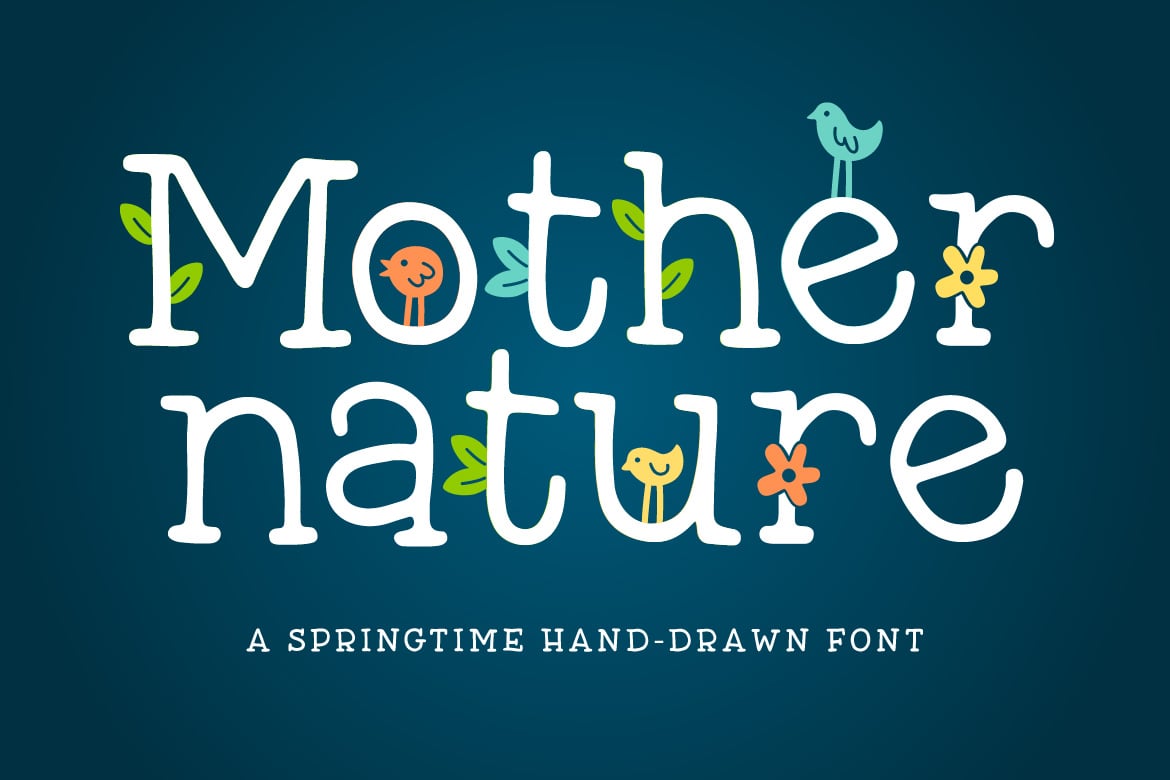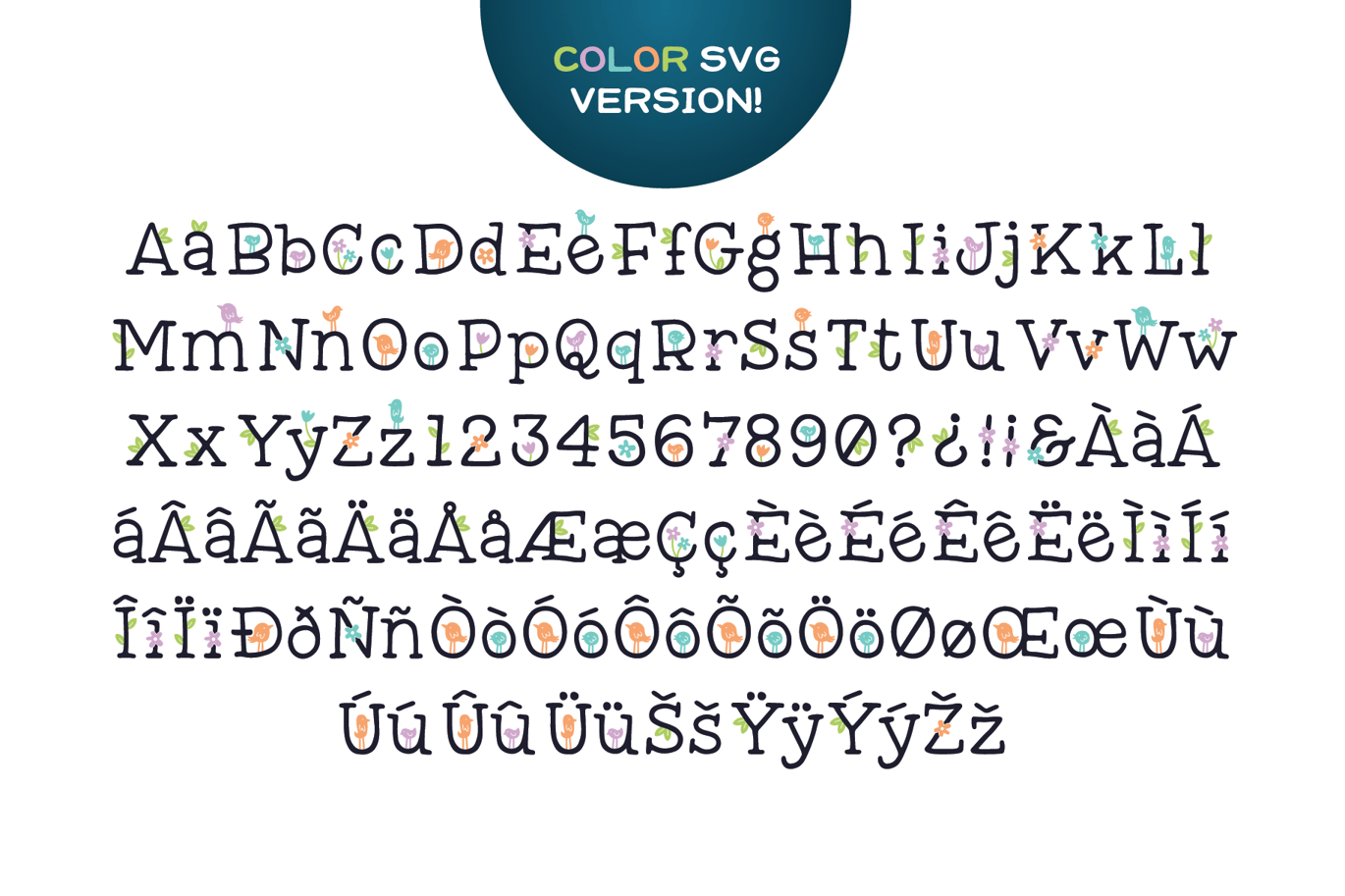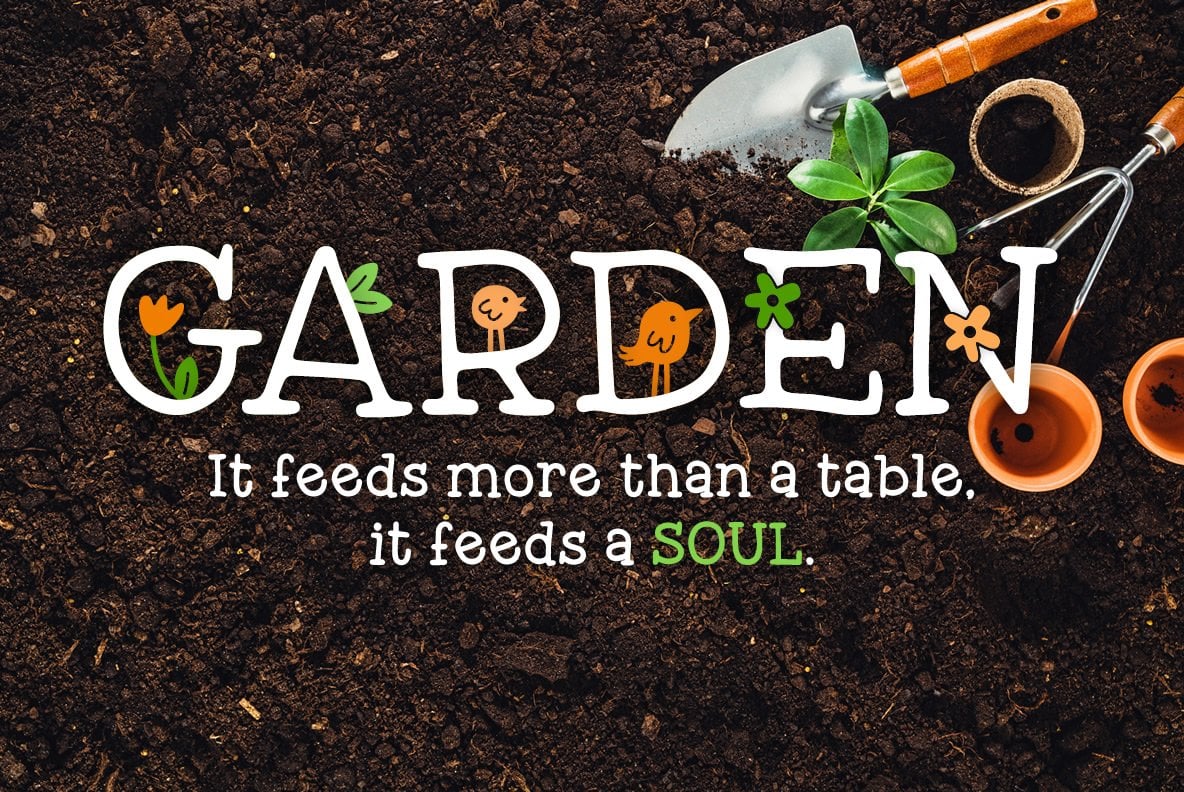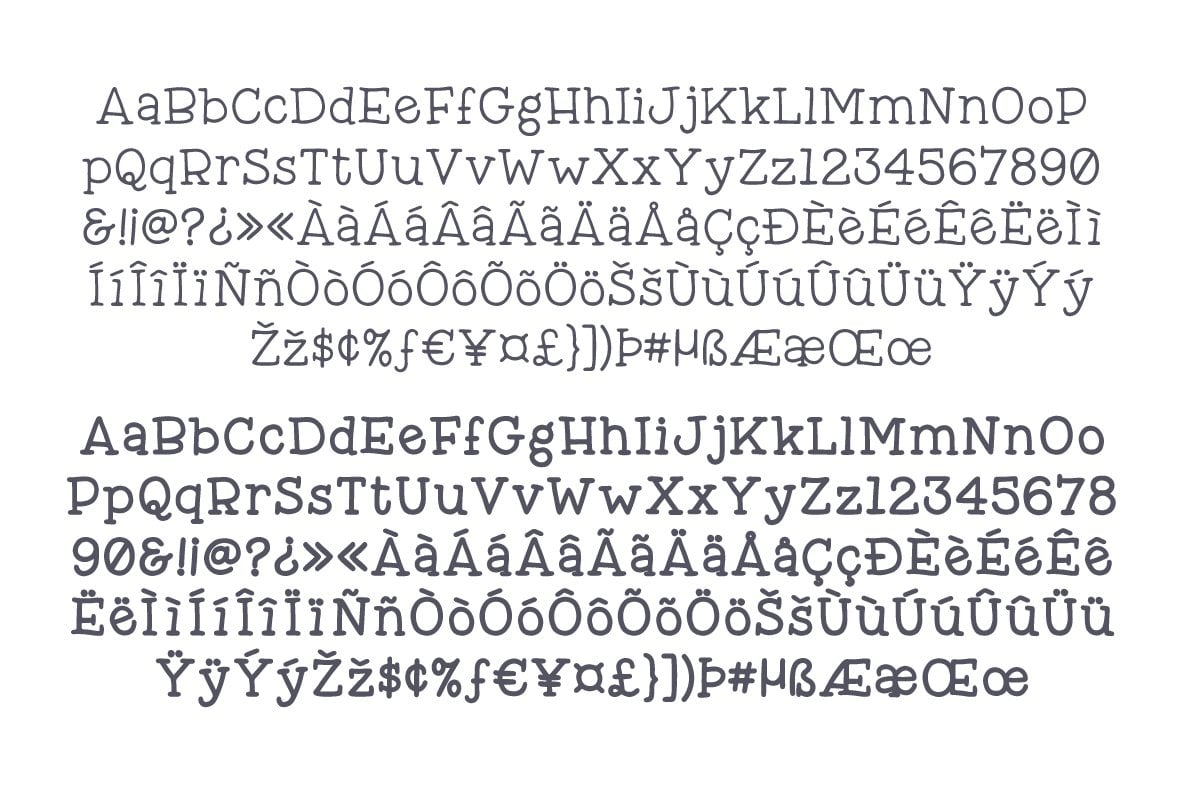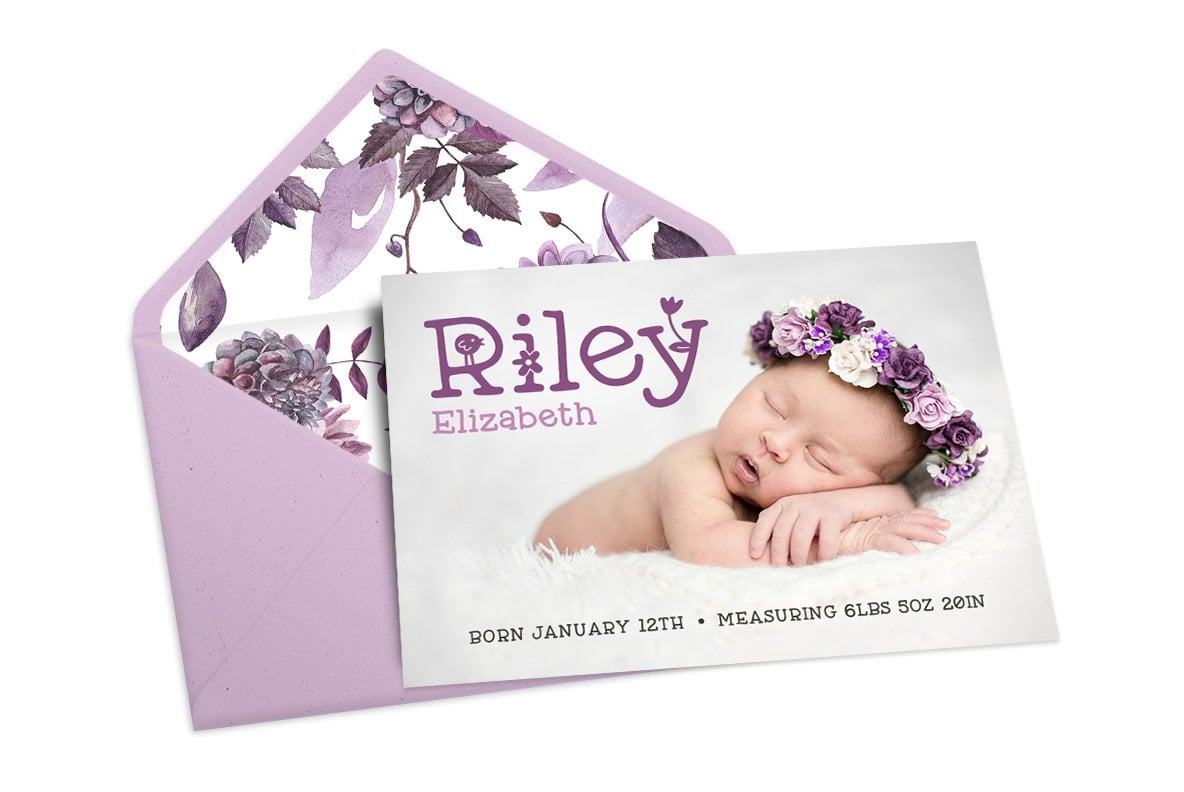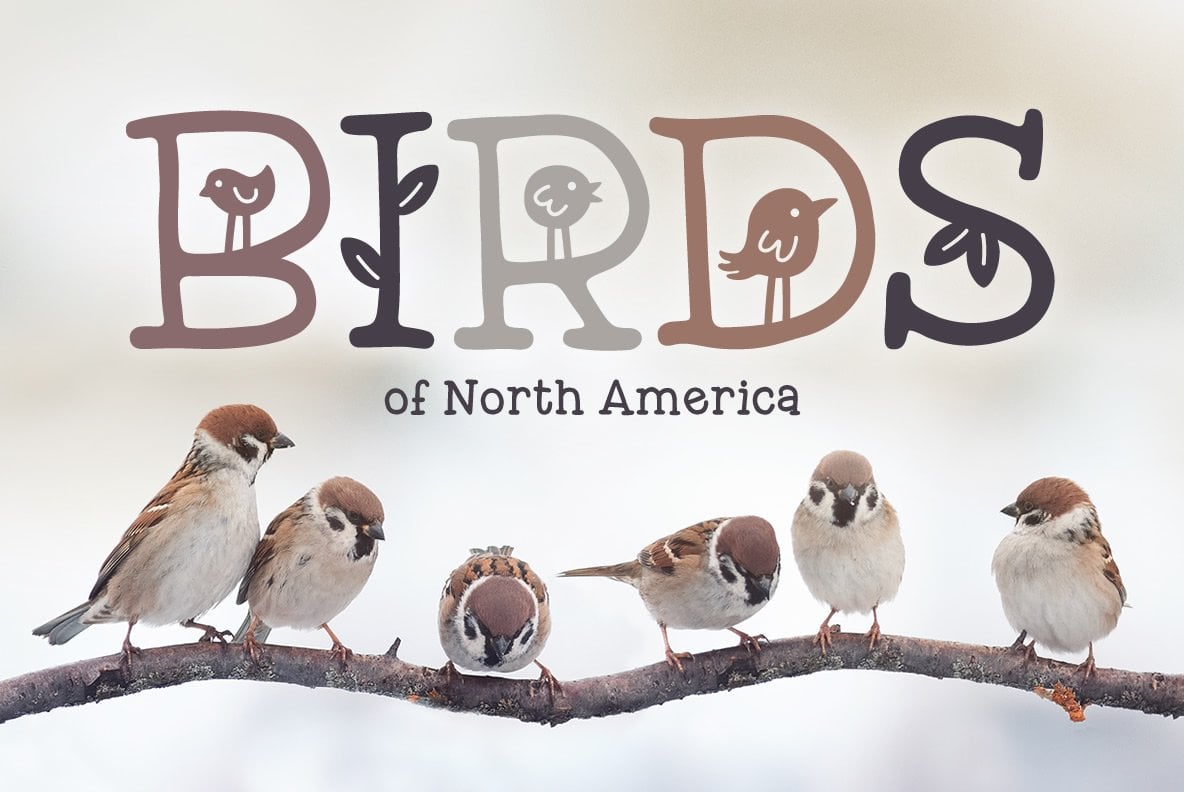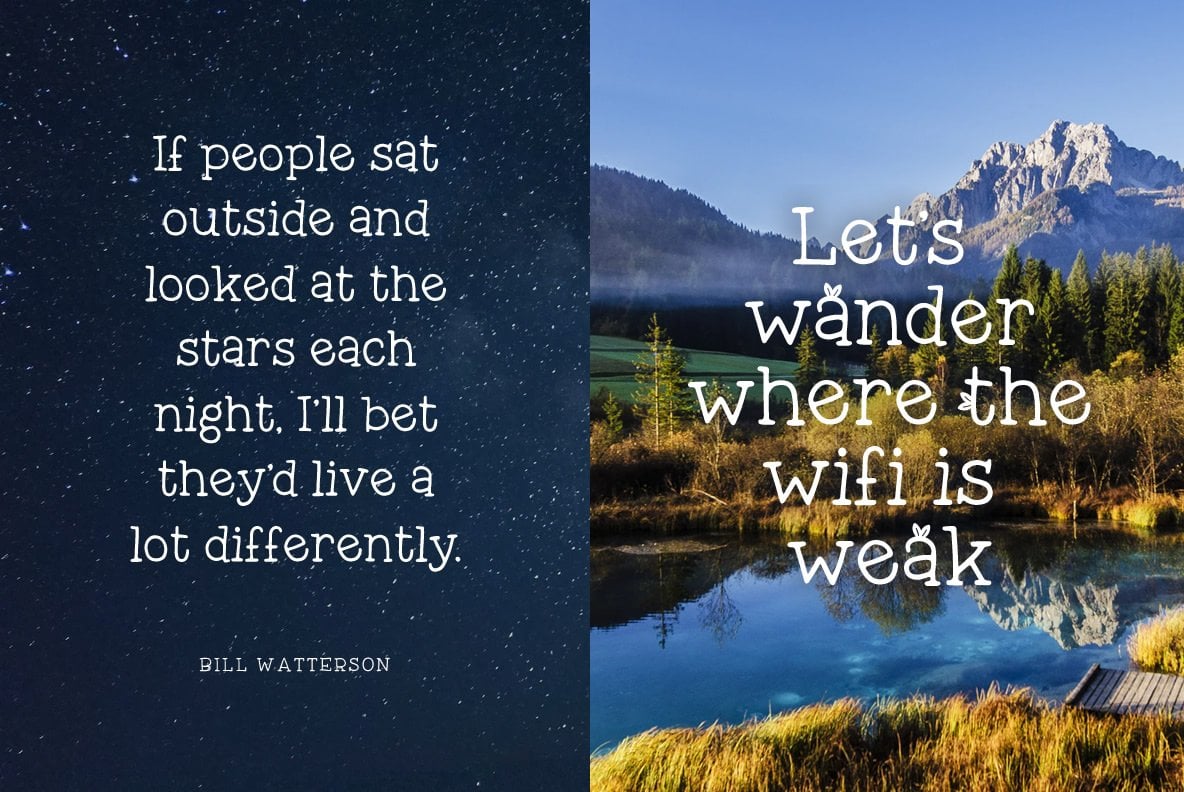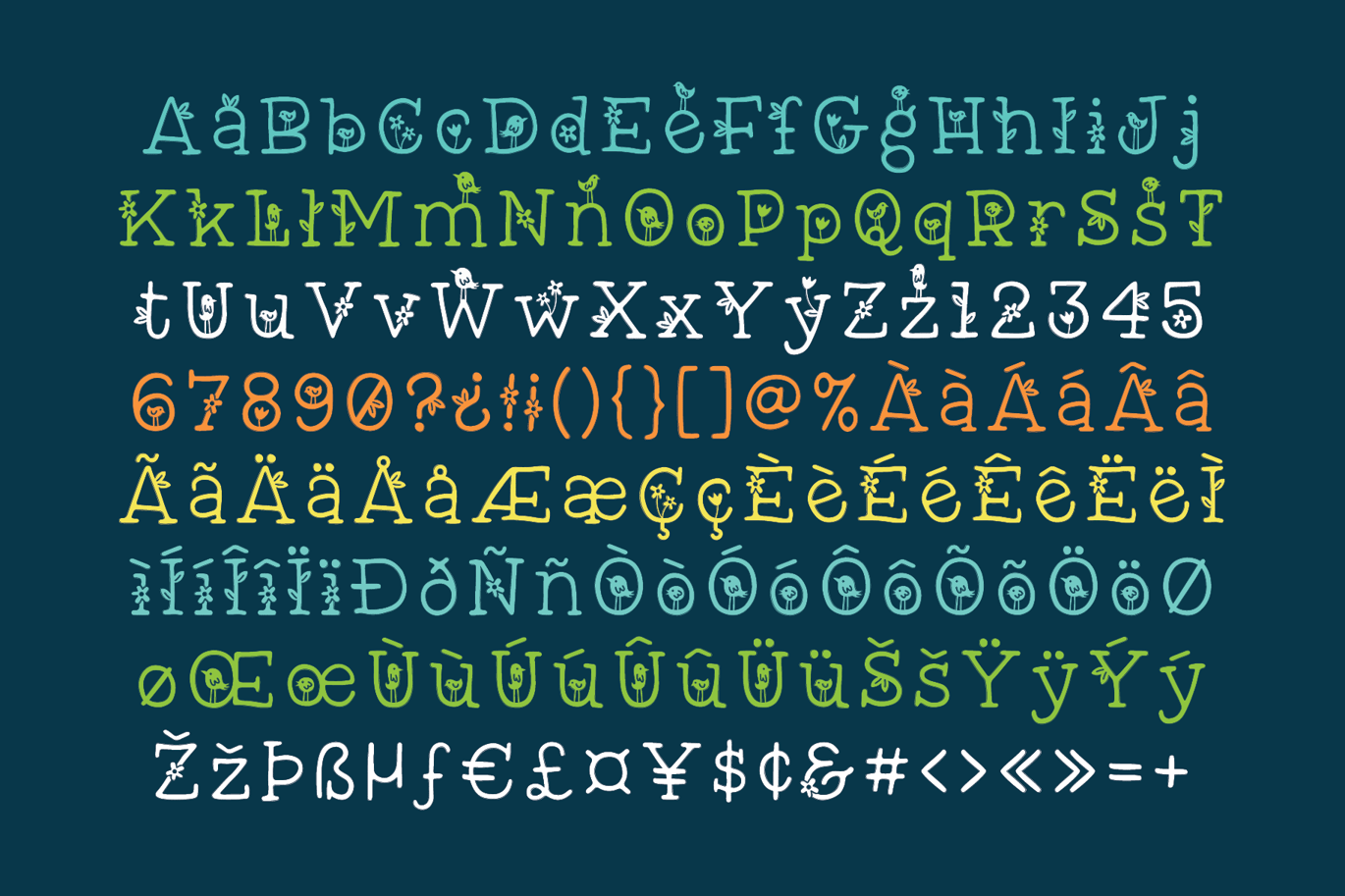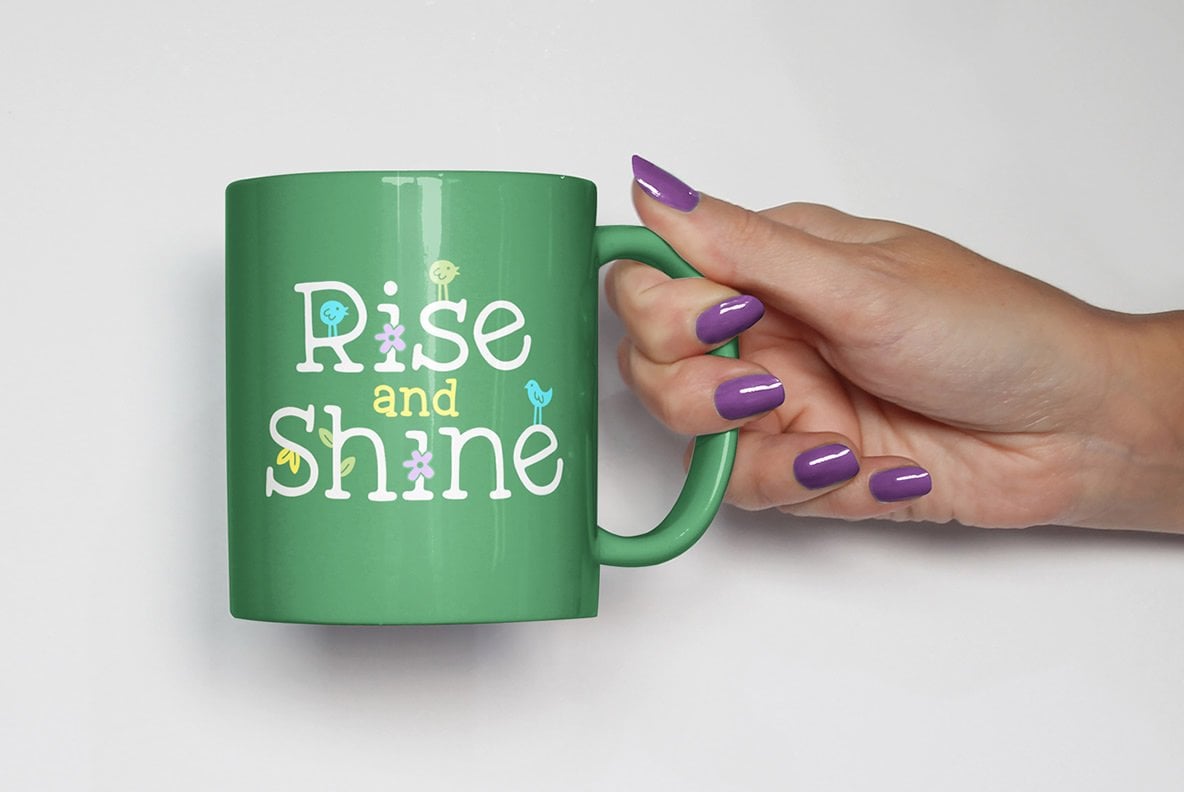
Mother Nature Font
Introducing: Mother Nature! A beautiful font that will give your projects a classic, yet fun and unique feel. Perfect for birth announcements, wedding invitations, anything that needs a touch of cuteness. Also included is a color SVG version. OpenType-SVG fonts can be used in programs like Photoshop CC 2017+, Illustrator CC 2018+, or InDesign CC 2019+.